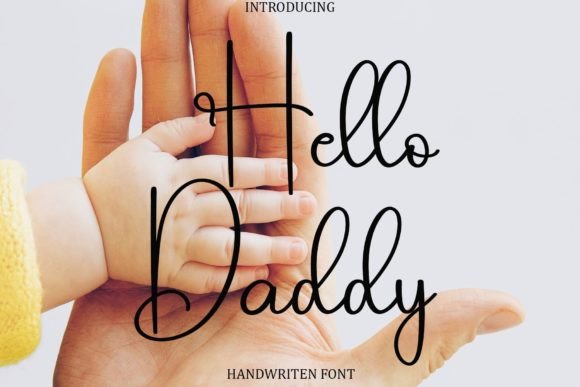
Introducing the Hello Daddy Font, a charming script font that will add a touch of sweetness to your creative projects. Inspired by the playful nature of handwritten notes, Hello Daddy brings a sense of warmth and joy to your designs.
With its elegant curves and lively characters, Hello Daddy captivates the essence of handwritten charm. Each stroke is carefully crafted to reflect the natural flow of ink on paper, creating a sense of authenticity and connection. The font's dynamic baseline adds a touch of whimsy, making it perfect for designs that aim to evoke a sense of fun and playfulness.
Hello Daddy's versatility makes it a perfect choice for a wide range of design projects. Its playful style shines in display text, adding a touch of whimsy to headlines, posters, and social media graphics. The font's delicate strokes also make it suitable for branding and logo design, where it can create a memorable and eye-catching identity. For those working on invitations, greeting cards, or wedding designs, Hello Daddy adds a touch of elegance and charm.
Designed by the talented Harlek Studio, Hello Daddy is a font that invites imagination and creativity. Its carefully crafted characters bring a sense of joy and wonder to any project, making it an ideal choice for designers looking to create designs that connect with their audience on an emotional level.